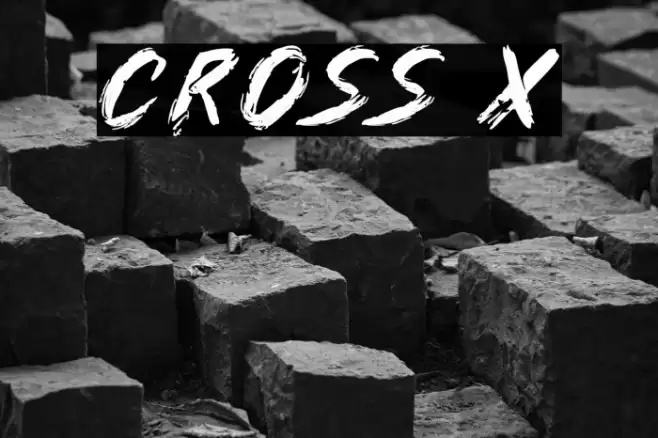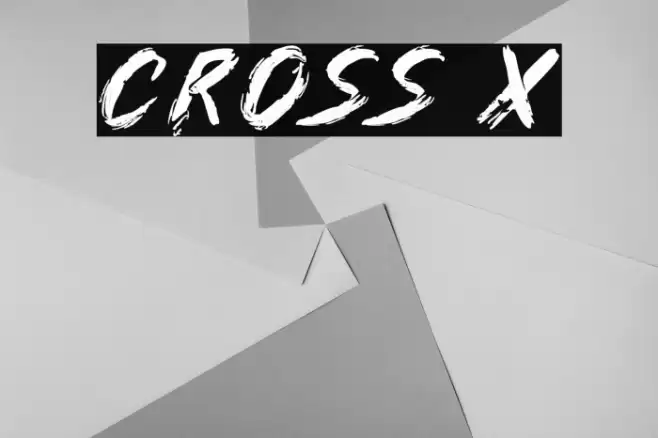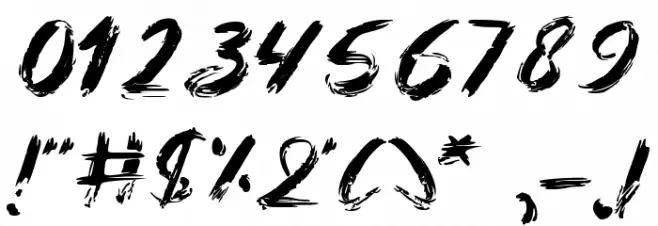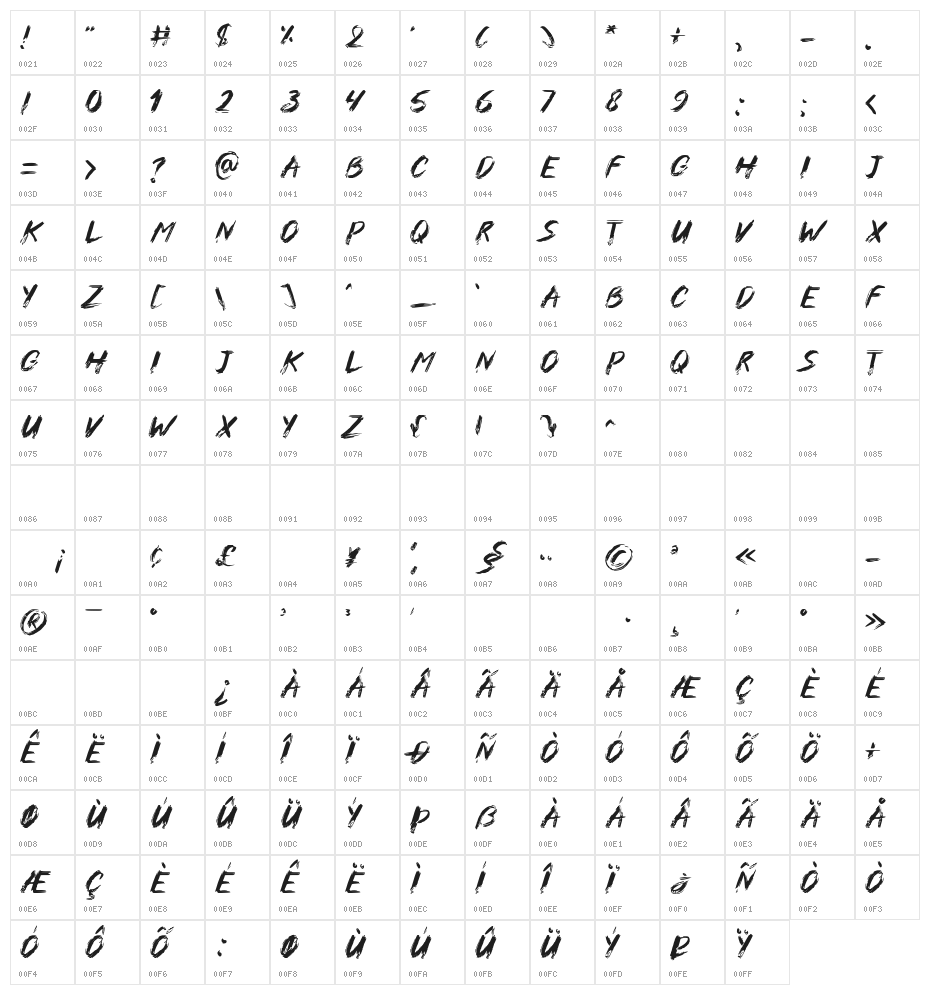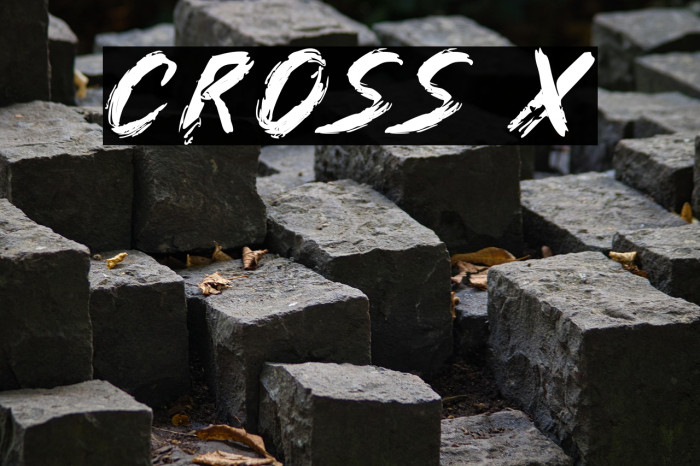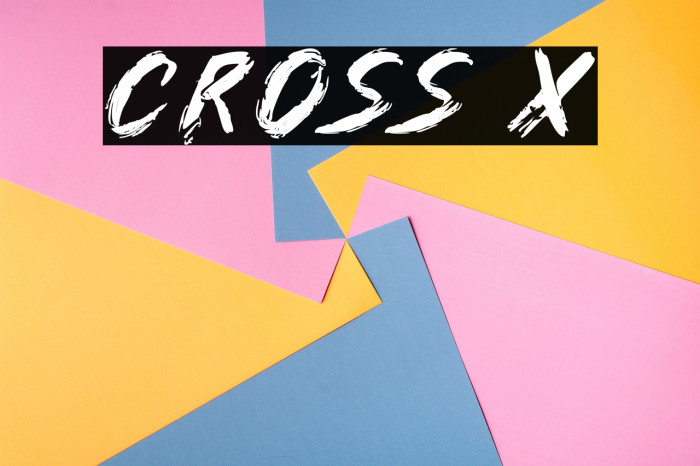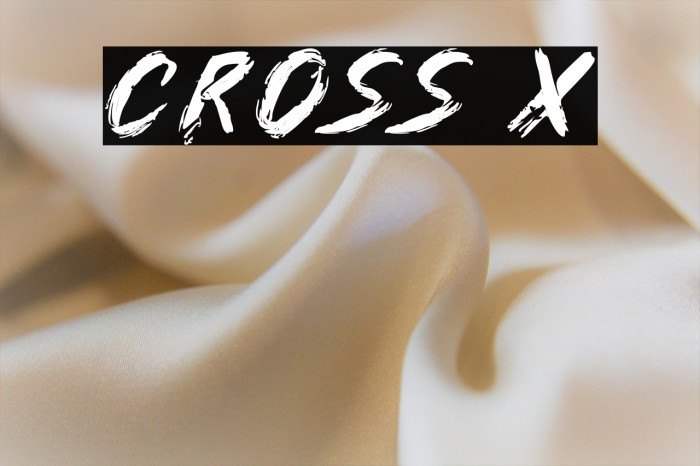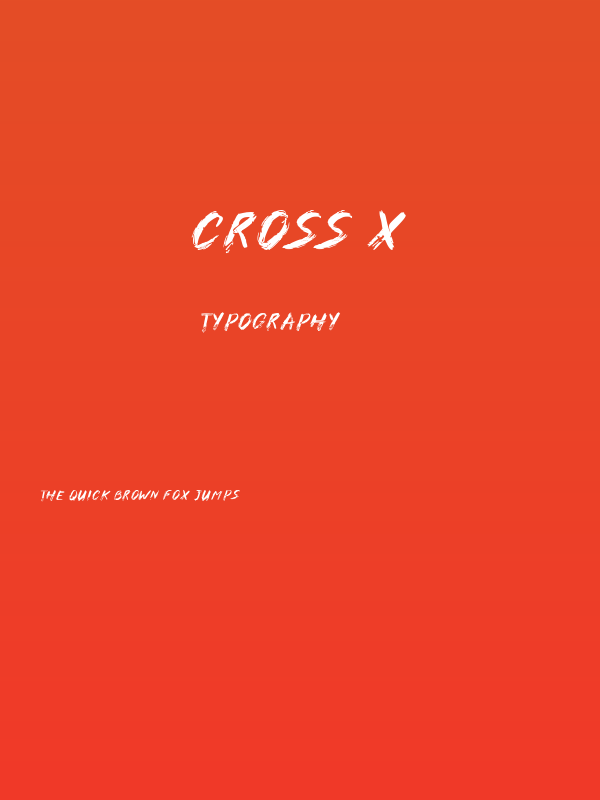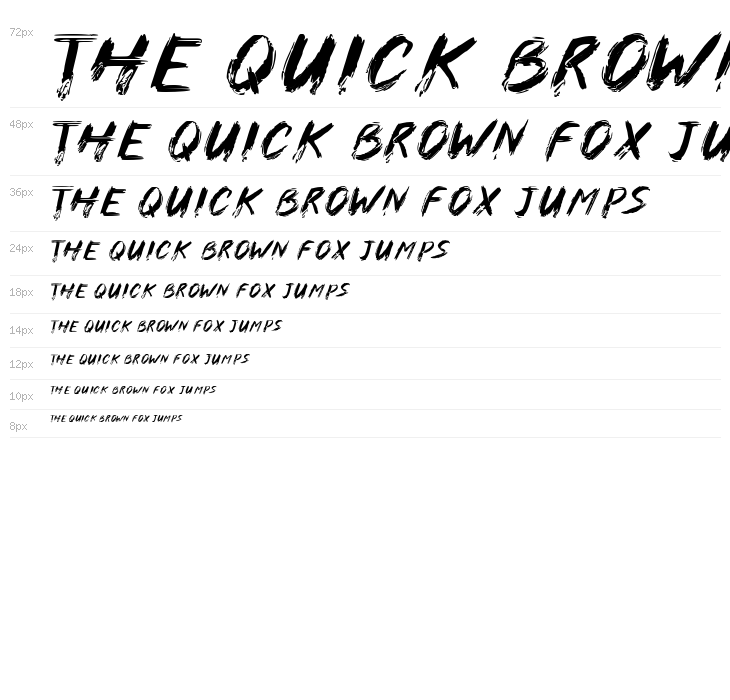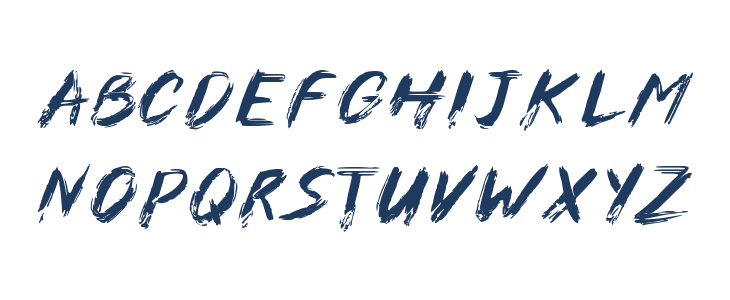
Cross X Font
Cross X Description
This font features a bold, brushstroke style that exudes energy and dynamism. Each character appears as if it has been painted with a thick brush, giving it a raw and artistic feel. The strokes are uneven, adding a sense of movement and spontaneity. The uppercase and lowercase letters maintain a consistent style, with sharp angles and a slightly slanted orientation. The numbers and special characters follow the same aesthetic, ensuring a cohesive look across all elements. This font is ideal for projects that require a bold statement or an artistic touch.
A bold, brushstroke font with energetic and dynamic character designs from Regular fonts.
- Font: Cross X
- Proposed Projects: Perfect for posters, album covers, branding for creative industries, and any project needing a bold, artistic flair.